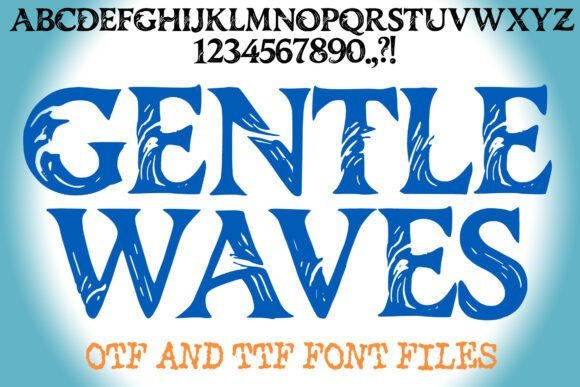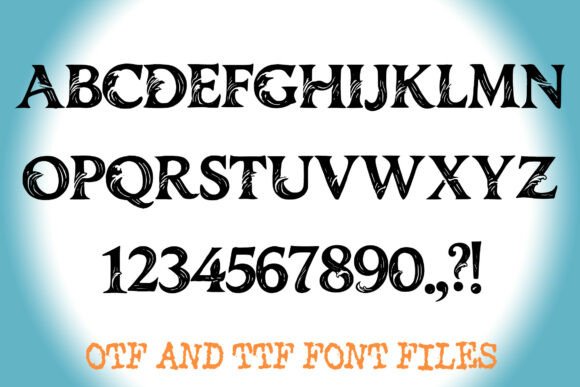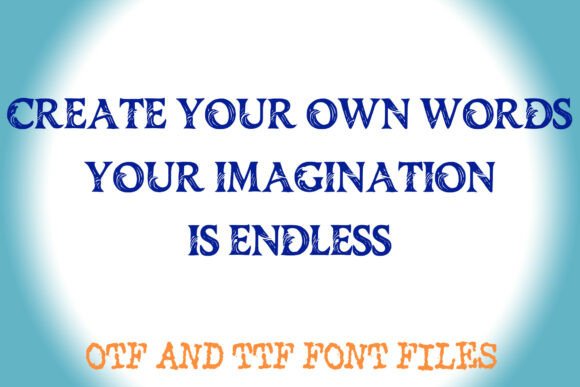
Where the Tides of Creativity Meet Design
Imagine yourself strolling along a serene beach at sunset, feeling the soothing ocean breeze on your skin, and listening to the gentle lapping of the waves against the shore. The calming atmosphere sparks a creative moment, and you can’t help but envision a design that captures the essence of this peaceful scene.
Enter Gentle Waves Font, a beautifully crafted decorative serif font that brings the tranquility of the ocean to your designs. With its elegant water wave detailing in each letter, Gentle Waves Font is perfect for nautical branding, beach themes, spa designs, or any project inspired by the ocean. As a designer, you’ll appreciate the versatility and sophistication this font offers, elevating your work with a touch of serenity and style.
Gentle Waves Font Key Features
- Font Family: Gentle Waves, a unique, handwritten font designed to evoke a sense of serenity and calmness.
- Character Set: Supports a wide range of languages, including Latin, Greek, and Cyrillic scripts, making it suitable for international use.
- Unique Characteristics: Features subtle wave-like strokes, organic textures, and varying line widths, giving it a distinctive, hand-drawn feel.
Gentle Waves Font Review
Gentle Waves Font is a beautifully crafted display font designed to evoke a sense of serenity and calmness. ✨ One of the standout features of this font is its unique blend of elegant and whimsical elements, making it perfect for creating eye-catching headlines and titles. ✨ The font’s varying line weights and subtle texture add depth and visual interest, drawing the viewer’s attention and creating a sense of movement.
However, there are a few limitations to consider. ⚠️ For one, the font may be too ornate for certain types of projects, such as body text or technical documentation. ⚠️ Additionally, some of the characters may be more prone to pixelation at smaller font sizes, which could affect the overall readability of the text.
Overall, I think Gentle Waves Font is a great choice for designers looking to add a touch of elegance and sophistication to their projects. While it may not be suitable for every use case, its unique style and versatility make it a valuable addition to any font collection.
Pros:
- Unique blend of elegant and whimsical elements
- Varying line weights and subtle texture add depth and visual interest
- Perfect for creating eye-catching headlines and titles
Cons:
- May be too ornate for certain types of projects
- Characters may be more prone to pixelation at smaller font sizes
For a more professional look, pair the Gentle Waves font with a simple background and bold headings.
For a unique look, use the Gentle Waves font in combination with hand-drawn elements or watercolor textures.
For a clean and modern look, use the Gentle Waves font in a presentation or report.
Common use cases for the Gentle Waves font include:
- Beach-themed designs and branding
- Children’s book illustrations and educational materials
Remember to pair the Gentle Waves font with a clear and concise message to ensure your design is effective and engaging.